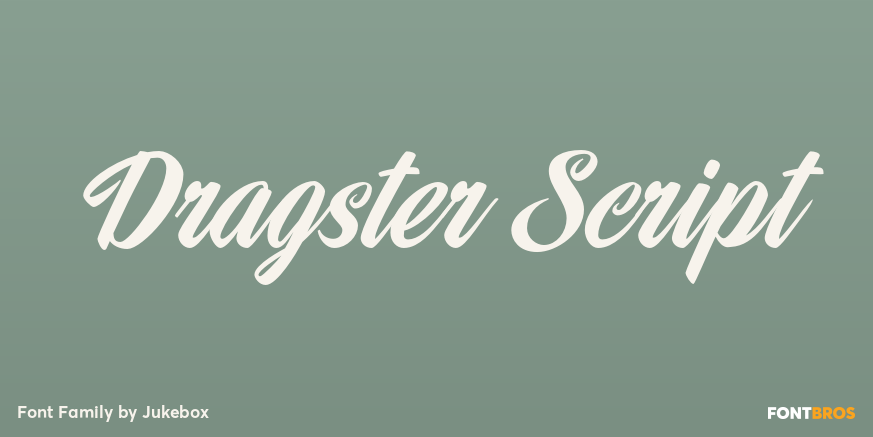
Dragster Script
About Dragster Script
Dragster Script is one of my personal favorites and is another script font inspired by the work of sign-painter, Mike Stevens. To add typographic variation and a more hand-lettered feel, Dragster Script contains three